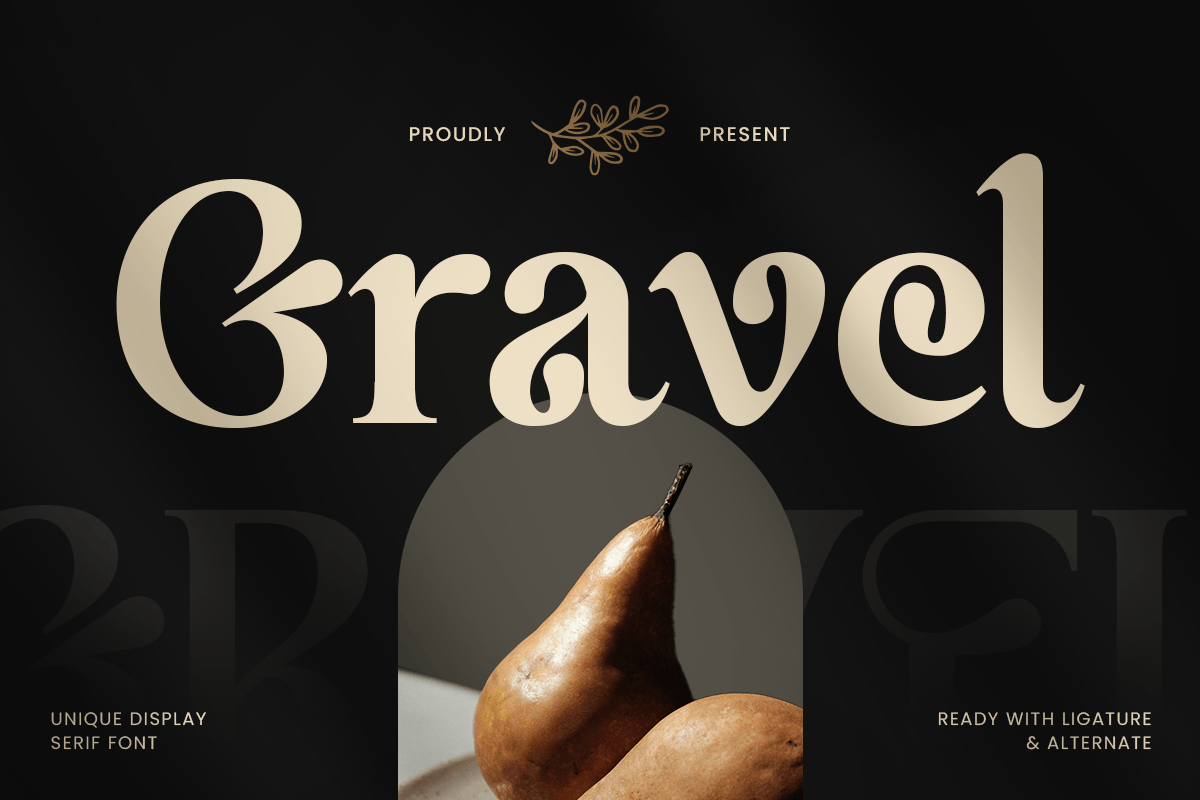
Gravel
-Unique Display Serif Font
Gravel - Unique Display Serif Font
Gravel is a unique display serif font designed to bring bold character and refined personality to your typography. With striking serif details and a confident display presence, this typeface creates a visual tone that feels stylish, expressive, and instantly memorable.
Built for statement-driven design, Gravel works beautifully across logos, wordmarks, editorial headlines, magazine covers, website headers, packaging, labels, invitations, posters, signage, and social media graphics. Its display serif construction gives every title strong visual impact while maintaining clarity and sophistication across both digital and print layouts.
Whether you’re building a fashion identity, creating premium branding, designing elegant packaging, or crafting eye-catching editorial compositions, Gravel provides a unique serif foundation that makes your typography feel bold, polished, and full of distinctive charm.
Inspiration Behind Gravel
Gravel is inspired by modern editorial typography and expressive serif branding—where bold structure and unique detail create a memorable visual signature. The design focuses on strong display rhythm, refined serif elegance, and premium balance to support standout branding and sophisticated headline design with a contemporary edge.
Gravel Font Features:
• Unique display serif letterforms with bold elegant character
• Perfect for logos, branding systems, and headline typography
• Strong visual impact for editorials, posters, and premium layouts
• Stylish serif structure with expressive modern personality
• Logos, wordmarks, and premium brand identity systems
• Editorial layouts, magazine covers, and headline typography
• Fashion, boutique, beauty, and luxury branding
• Packaging, labels, invitations, and elegant promotional design
• Social media graphics, websites, and stylish marketing visuals
Make every headline stand out with Gravel—a unique display serif font built for bold, elegant visual impact. ✨